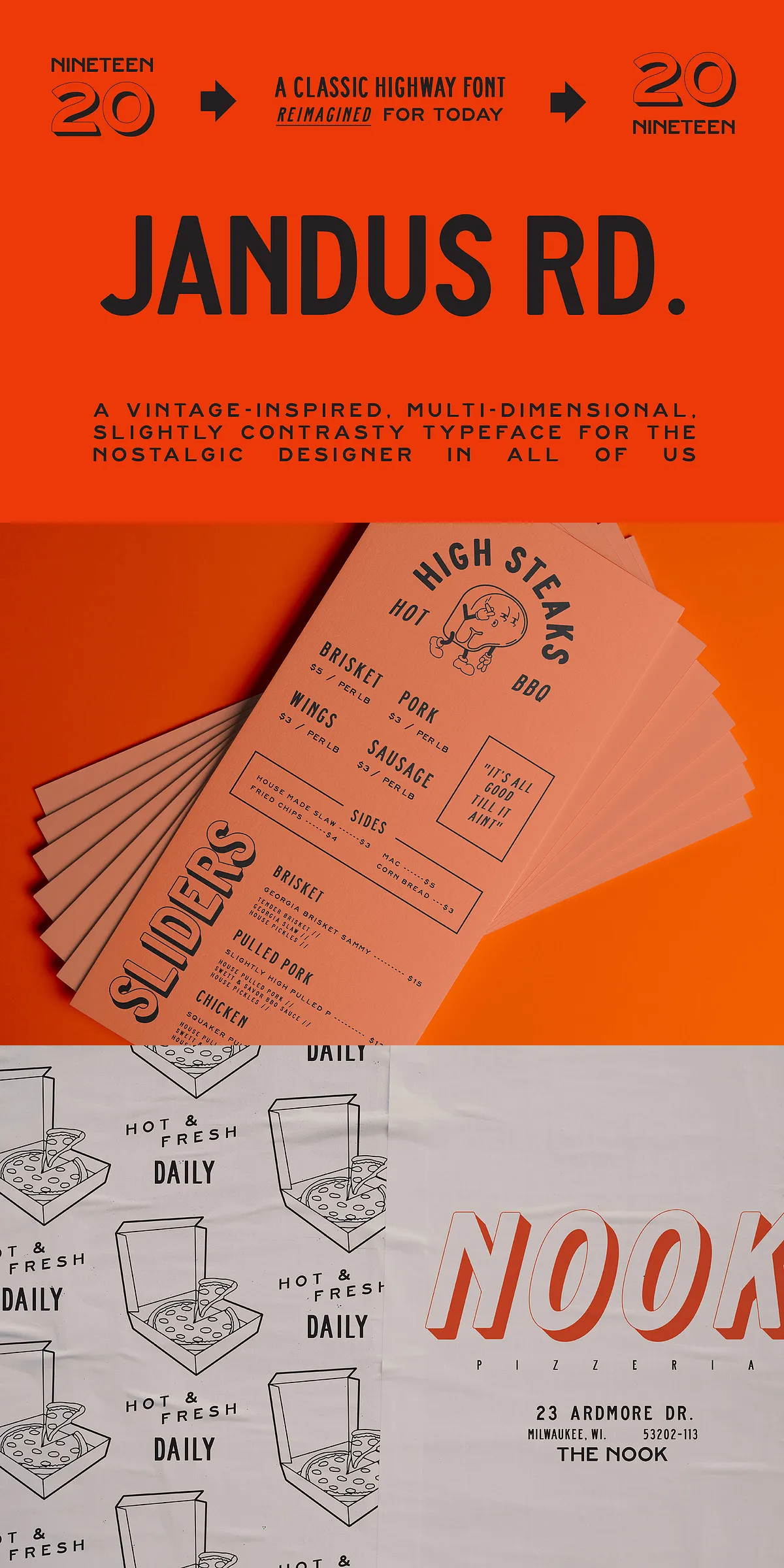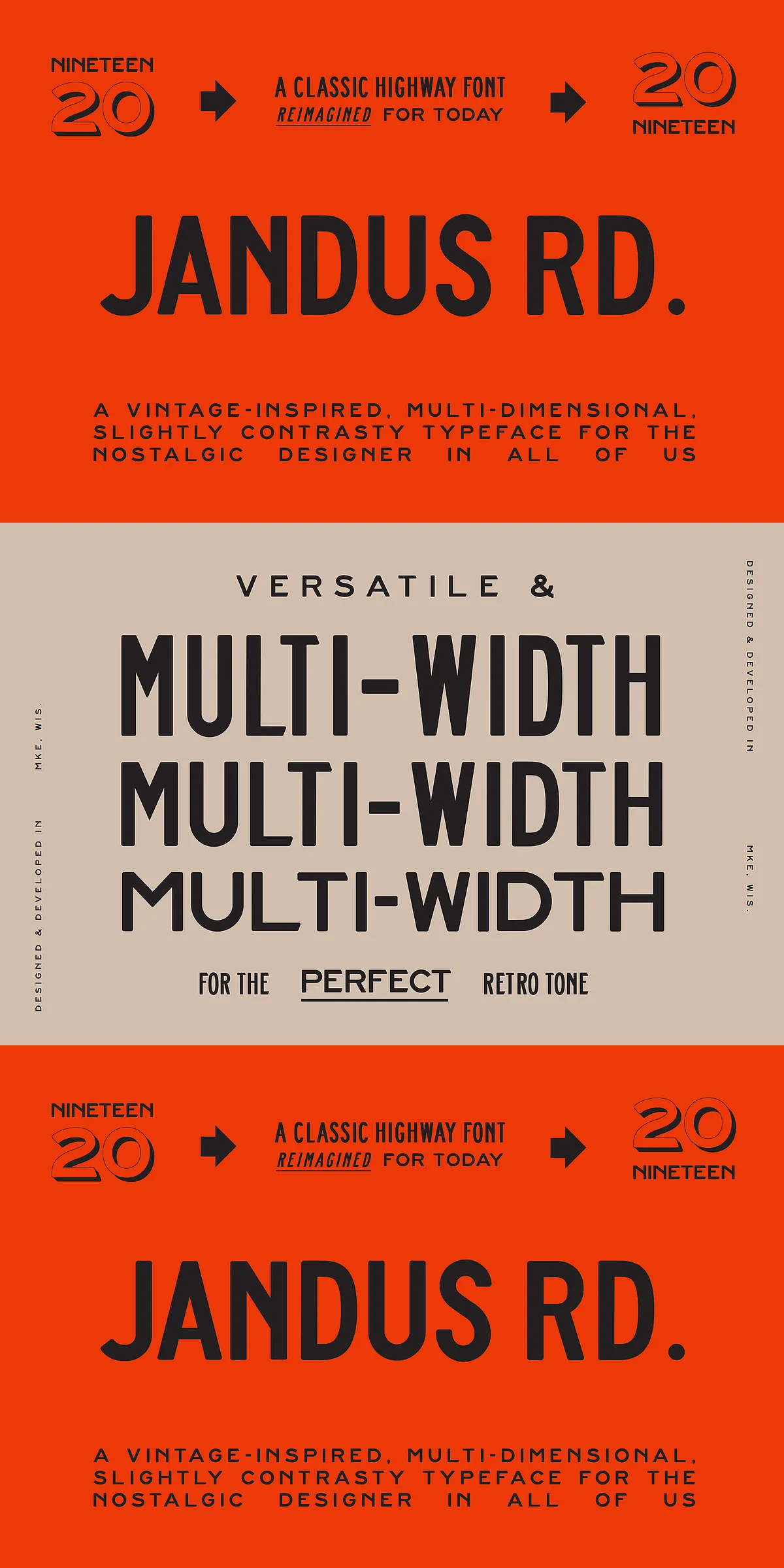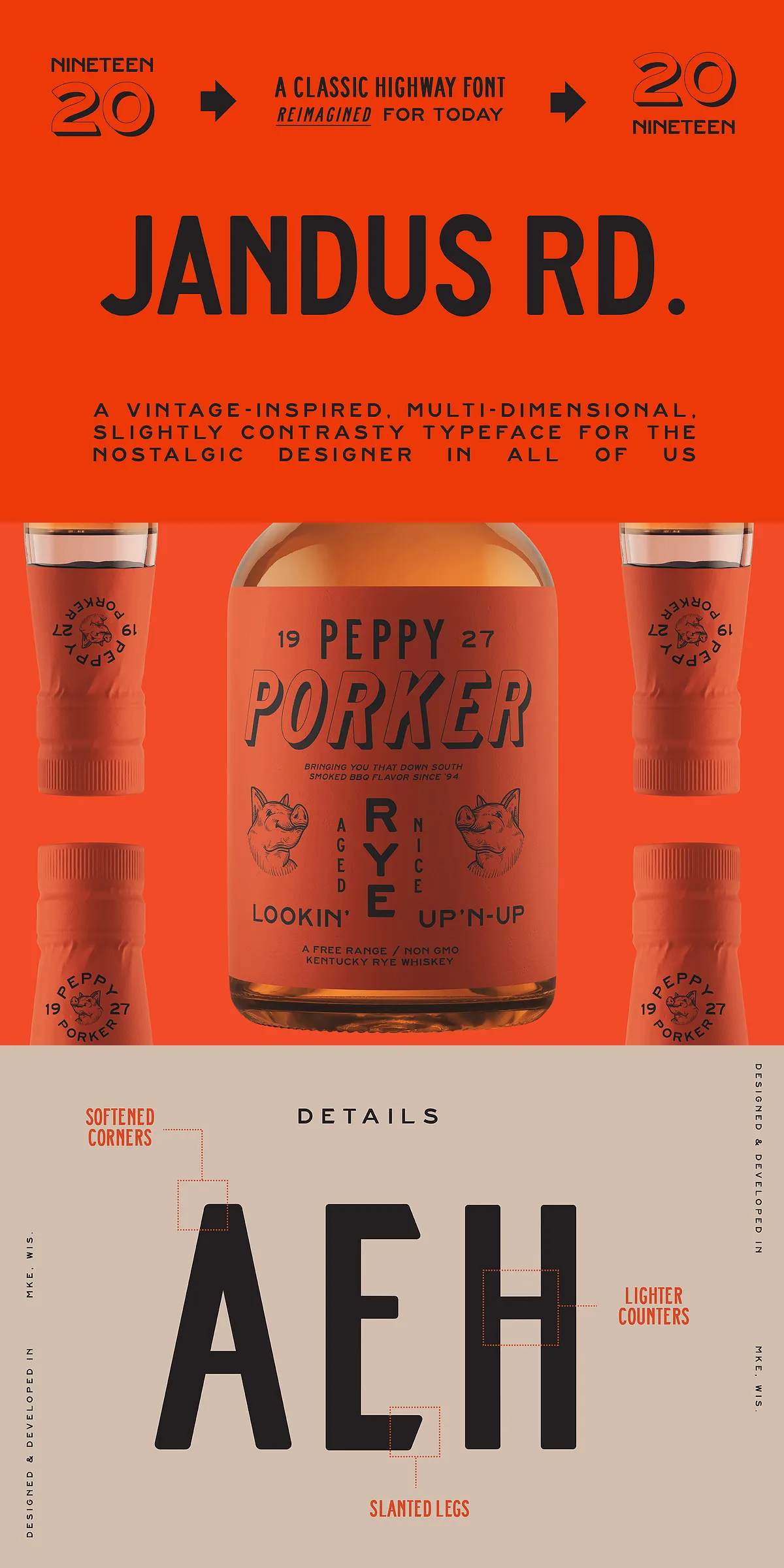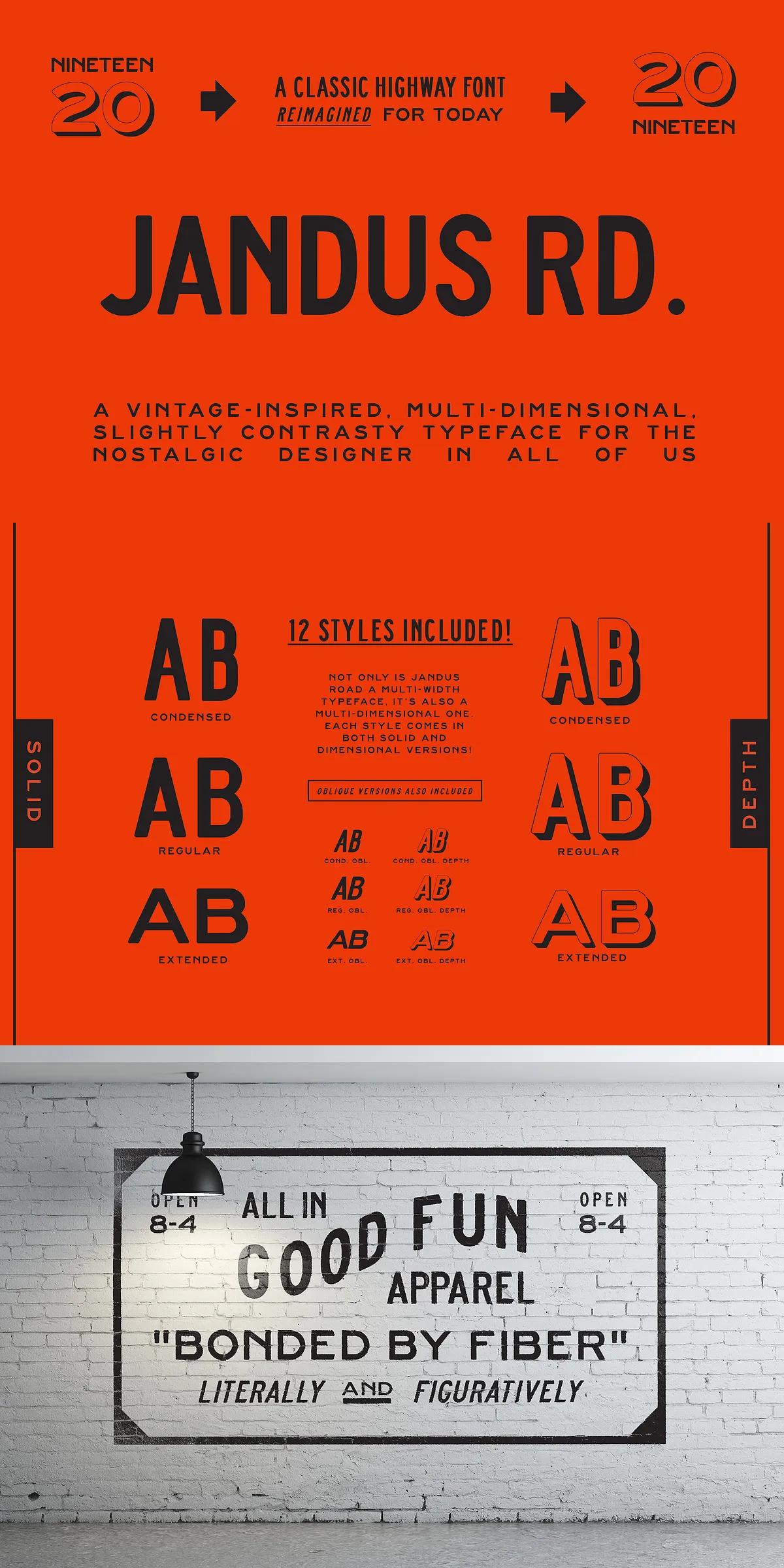
Step onto the open road of design with Jandus Road — a bold, modern reinterpretation of the iconic US Highway Gothic standard that powers our nation’s roadways. This isn’t just a font. It’s a full-on visual journey into mid-century American design, where functionality meets flair. Meticulously crafted from the original Highway Gothic style, Jandus Road transforms utilitarian signage into a powerful design statement, blending timeless legibility with a distinct vintage soul.
Rooted in History, Reimagined for Impact
The story of Jandus Road begins where the road signs end. Originally developed in the 1940s by the U.S. government, Highway Gothic was a revolutionary standard — engineered for maximum legibility at high speeds, with minimal contrast, large counters, and clear, distinct characters. Its simplicity was its genius, and now, Jandus Road honors that legacy while injecting personality, style, and soul.
What sets Jandus Road apart? It’s the subtle art of transformation:
– Softened Corners: Modernized for a warmer, more inviting feel without sacrificing clarity.
– Slanted Legs & Width Variation: Add visual energy and rhythm to your typographic layouts.
– Raised Counters: Enhance visual spacing and create a subtle “floating” effect that elevates the font’s presence.
This is functional design, upgraded. It speaks to the past, yet commands attention in today’s creative landscape. Whether you’re designing a vintage-inspired logo, a retro packaging line, or a bold poster for a music tour, Jandus Road doesn’t just inform — it captivates.
12 Powerful Styles — Infinite Creative Possibilities
Jandus Road ships with a full arsenal of 12 meticulously designed font styles, giving you complete control over tone, scale, and dimension. Each variant is engineered for real-world design challenges, so you’re never limited by your vision.
- Regular & Oblique: The foundation. Clean, sharp, and perfectly legible for headlines, tags, and brand names.
- Depth (3D Effect): Add dimension to your text with a true 3D relief that makes your words stand out in the foreground.
- Oblique Depth: Combine slant with depth for a dynamic, forward-leaning effect — ideal for sports and action branding.
- Condensed: Maximize impact in tight spaces. Perfect for product labels, business cards, and magazine headlines.
- Condensed Oblique: A lean, fast-paced style that cuts through clutter and grabs attention.
- Condensed Depth & Condensed Oblique Depth: Stack the energy — perfect for creating bold, layered designs.
- Extended: Spread your message wide and bold. Use for banners, book covers, and dramatic titles.
- Extended Oblique: A stretched, slightly slanted powerhouse for high-impact headlines.
- Extended Depth & Extended Oblique Depth: The grand finale. Create monumental, architectural headlines that command space and presence.
Where Retro Meets Modern Design Demands
Jandus Road isn’t just a throwback — it’s a strategic tool for modern creators. Its heritage ensures that every character remains unmistakably legible, even in complex compositions. Yet, its stylized touches make it stand out in digital environments, print, and large-format applications.
- Branding & Identity: Build a memorable brand that feels authentic, rugged, and full of character.
- Packaging & Labeling: Make your products stand out on crowded shelves. The retro flair draws customers in, while the clarity ensures readability.
- Event Posters & Promotions: Use it to create instant visual intrigue for concerts, festivals, and pop-up shops.
- Website Headers & UI Components: Add a vintage punch to site headings, buttons, or navigational elements.
- Merchandise & Apparel: Turn T-shirts, mugs, and tote bags into collectible pieces with bold, expressive typography.
Engineered for Seamless Integration
Built for professionals, Jandus Road delivers excellence across platforms. The font is delivered in OpenType (OTF) format, ensuring flawless performance in Adobe Creative Suite, Figma, Sketch, Affinity Designer, and web environments. It supports extended Latin characters, so your multilingual projects remain expressive and accurate.
From a tiny product tag to a towering billboard, Jandus Road adjusts with confidence. Its design resists distortion, maintains sharpness at any size, and scales with precision — whether on a screen or in print.
Stop Designing with Predictability. Start Designing with Presence.
In a world of bland, generic fonts, Jandus Road dares to be different. It’s not afraid of boldness. It doesn’t apologize for its history. It embraces its roots while pushing forward with energy, personality, and a clear vision.
Choose Jandus Road when you want your design to tell a story — not just show a message. When you want typography to feel alive, grounded, and unforgettable.